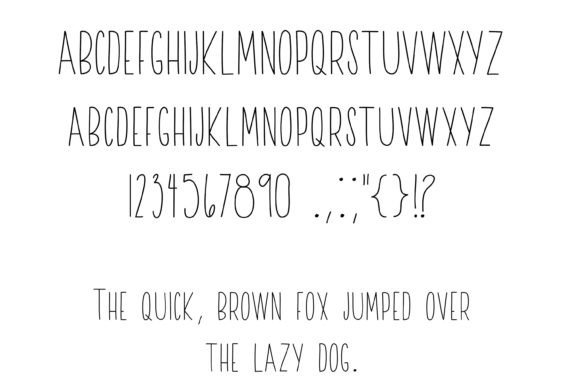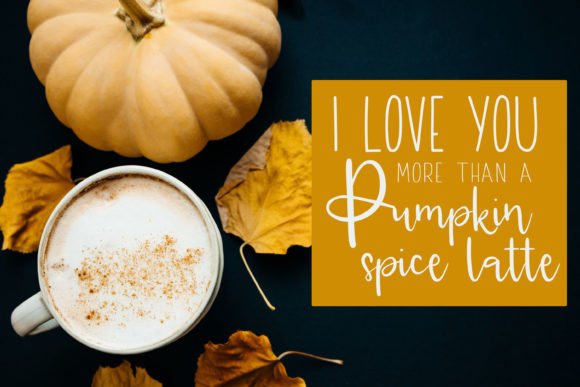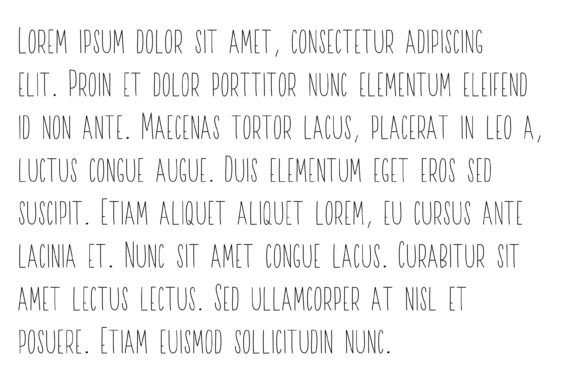
Introduction to Pumpkin Pie Lattes Font
Pumpkin Pie Lattes is a warm sans-serif font perfect for all your favorite projects.
Its cozy and lovely vibe will add a unique accent to your crafty ideas .
Key Features of Pumpkin Pie Lattes Font